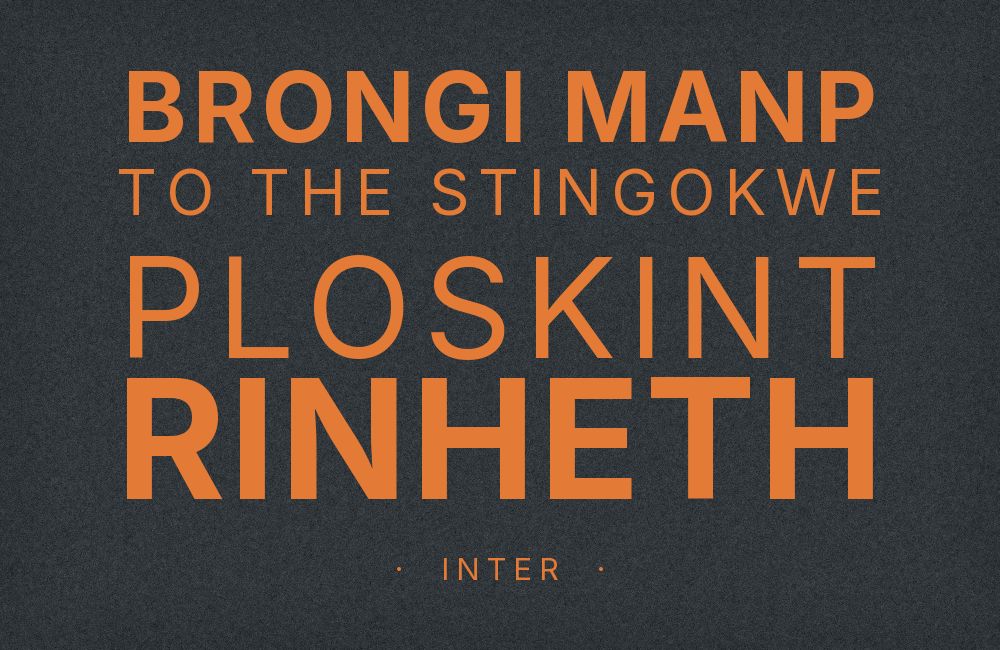
Inter pairs great with Manrope, Playfair Display and Roboto. All 15 pairings are shown below in real rendered specimens, with the reason each one works.
What fonts go with Inter? As one of the most meticulously crafted open-source typefaces of the past decade, Inter demands equally thoughtful companions that can match its precision without duplicating its purpose.
Inter began life as a passion project by Rasmus Andersson, originally designed for user interfaces under the name Inter UI. It is developed in the open on GitHub, resulting in a typeface optimized for legibility on screens. The design features a tall x-height, open apertures, and carefully tuned vertical metrics. Perhaps most notably, Inter includes contextual alternates and an optical-size range from text to display, making it one of the most technically sophisticated fonts available.
The difficulty in pairing Inter lies in its very excellence at being neutral and functional. It does its job so well that finding fonts that add visual interest without creating friction requires genuine consideration. Serif pairings can introduce personality and editorial gravitas, while alternative sans-serifs need distinct characteristics to justify their presence alongside such a polished all-rounder. Here are 15 fonts that pair well with Inter, each chosen for what they bring to the typographic conversation.
1. Manrope
Inter and Manrope are like two architects from the same firm who studied under different masters. Both sport open apertures and generous x-heights that practically beg for dashboard interfaces and fintech apps. Manrope brings slightly softer terminals where Inter stays razor-sharp, creating just enough tension to keep the eye engaged. The stroke weights dance together beautifully at 400 and 500, making this pairing a workhorse for SaaS products that need to feel approachable without sacrificing professionalism. Use Manrope for headlines, Inter for body, and watch your admin panels transform.
See Details2. Playfair Display
Here’s typographic alchemy at work: Playfair Display‘s high-contrast strokes and hairline serifs collide with Inter’s clean neutrality like champagne and hors d’oeuvres at a gallery opening. The magic lives in the tension between Playfair’s 18th-century elegance and Inter’s Silicon Valley pragmatism. Set Playfair at 48px or larger where its delicate serifs can breathe, then let Inter handle the heavy lifting at body sizes. This pairing screams editorial luxury without the pretense, perfect for lifestyle brands and boutique agencies wanting gravitas with a modern spine.
3. Roboto
Pairing Inter with Roboto feels almost like cheating. Both are screen grotesques, and early Inter even borrowed Roboto’s vertical metrics. The difference? Roboto carries Google’s DNA with slightly rounder curves, while Inter maintains that Scandinavian precision in its terminals. Together they create a UI system that reads as cohesive without being monotonous. Deploy Roboto for headlines where its curves add warmth, Inter for body where its legibility optimizations shine. Material Design meets European minimalism.
4. Lora
Lora brings what Inter lacks: soul. This calligraphic serif with its brushed terminals and gentle stress creates the kind of visual friction that makes readers slow down and savor. Against Inter’s almost clinical precision, Lora’s warmth reads like handwritten marginalia in a technical manual. The x-heights align well enough that transitions feel natural, not jarring. This pairing excels in content-heavy applications where you need emotional resonance without sacrificing screen clarity. Think long-form journalism, literary magazines, or any project where humanity matters.
Find Out How5. Merriweather
Both Inter and Merriweather were explicitly designed for screens, and it shows. Their tall x-heights create a scanning rhythm that accessibility advocates love. Merriweather’s thick serifs provide excellent anchoring for headlines while Inter’s open counters keep body text crisp at small sizes. There’s a comfortable familiarity here, like a well-worn reading chair. This is the pairing you choose when readability isn’t just a feature, it’s the entire product. Legal documents, educational platforms, and accessible government sites all benefit from this no-nonsense duo.
6. Source Serif Pro
Adobe’s Source Serif Pro speaks the same measured language as Inter. Both fonts emerged from systematic design philosophies, sharing proportional DNA that makes them feel like distant cousins at a family reunion. Source Serif Pro brings transitional serif elegance with controlled contrast, while Inter supplies that neutral Swiss-knife utility. The pairing reads as corporate but not cold, authoritative but not stuffy. Annual reports, white papers, and B2B marketing materials find their sweet spot here.
7. IBM Plex Serif
There’s something beautifully systematic about pairing Inter with IBM Plex Serif. Both fonts carry institutional weight without bureaucratic stuffiness. In our view, Plex Serif’s quirky details add personality that Inter’s uniformity needs, and the proportions harmonize because both feel like they came from the same engineered, systematic mindset. This pairing works wonders for enterprise software, developer documentation, and any brand that needs to signal serious technical capability with typographic sophistication.